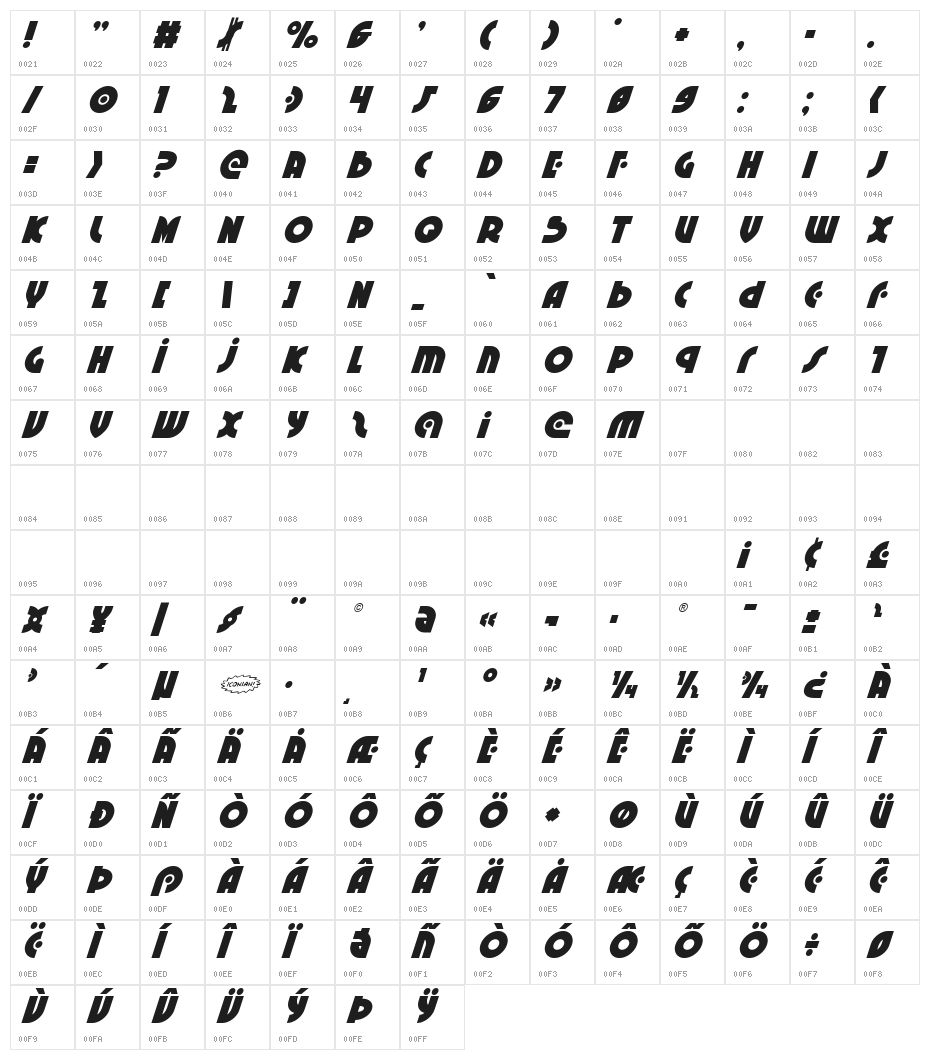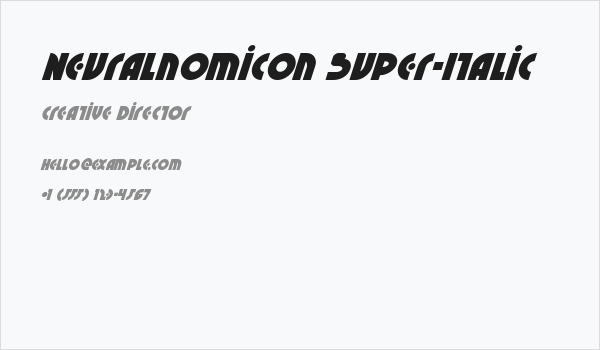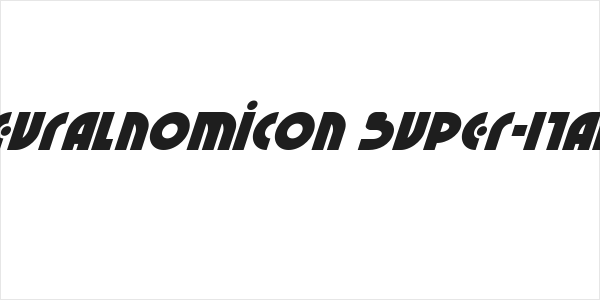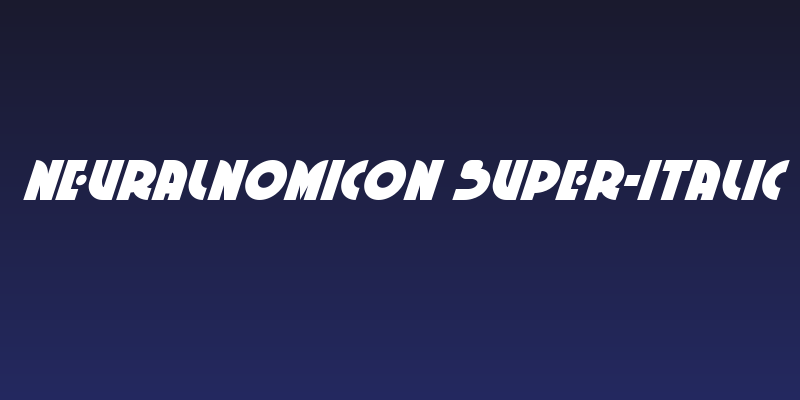
Neuralnomicon Super-Italic Font
Neuralnomicon Super-Italic Description
This font features a bold and dynamic style with a futuristic flair. The characters are heavily stylized, with sharp angles and a forward-leaning slant that gives a sense of motion and energy. The uppercase and lowercase letters maintain a consistent design, emphasizing geometric shapes and thick strokes. The numerals and special characters follow the same bold and angular aesthetic, ensuring uniformity across all glyphs. This font's unique appearance makes it stand out, ideal for projects that require a modern and edgy look.
| Proposed Projects | Ideal for sci-fi themed designs, video game titles, tech branding, and modern posters. |